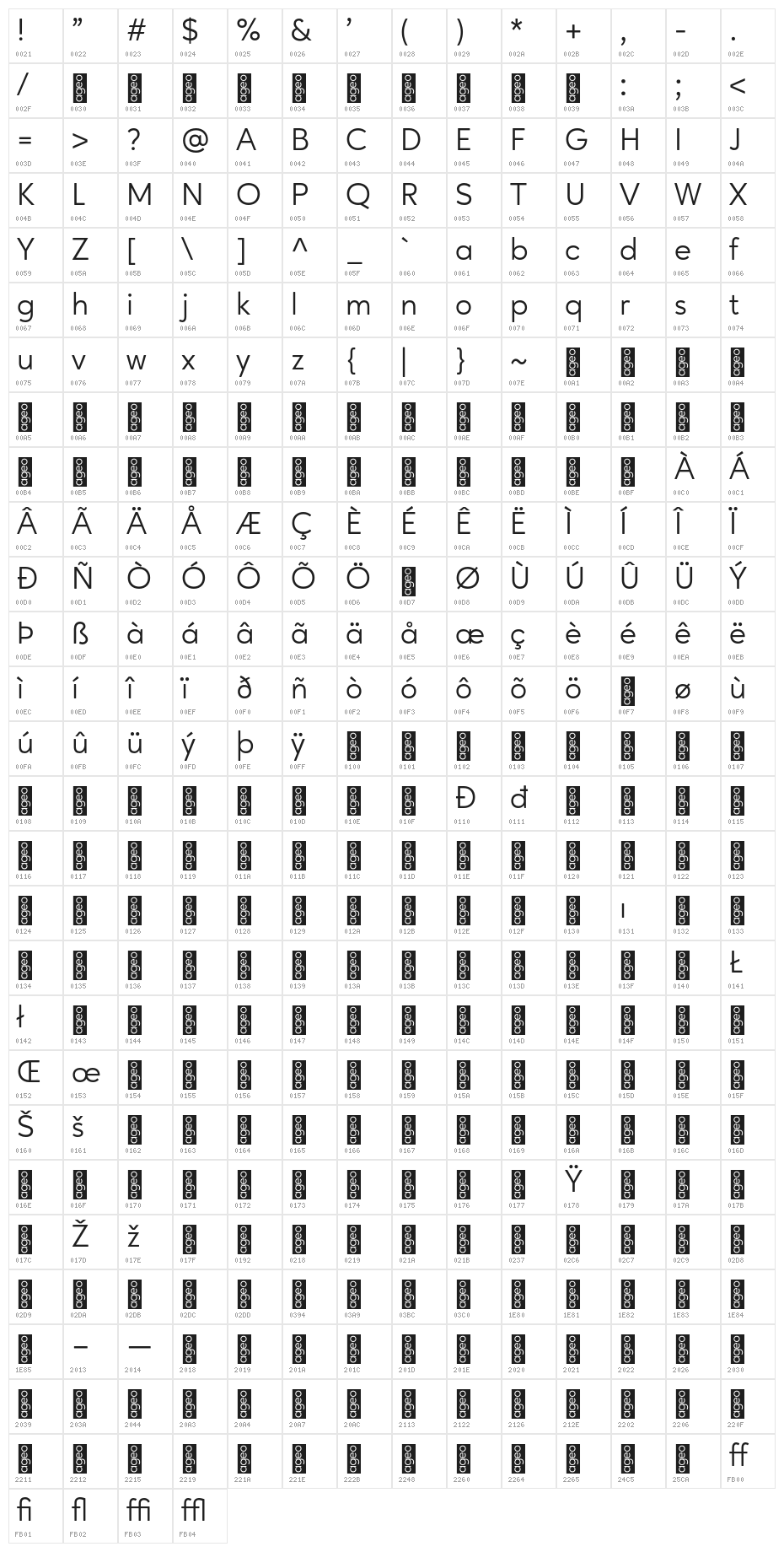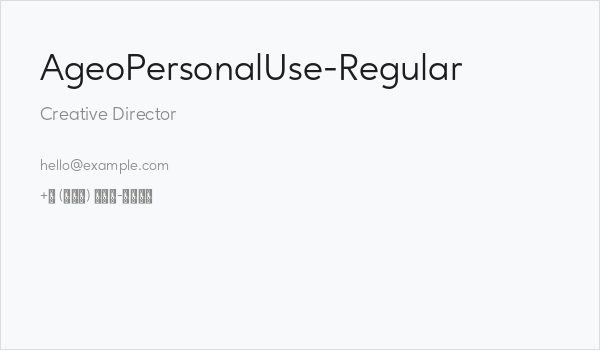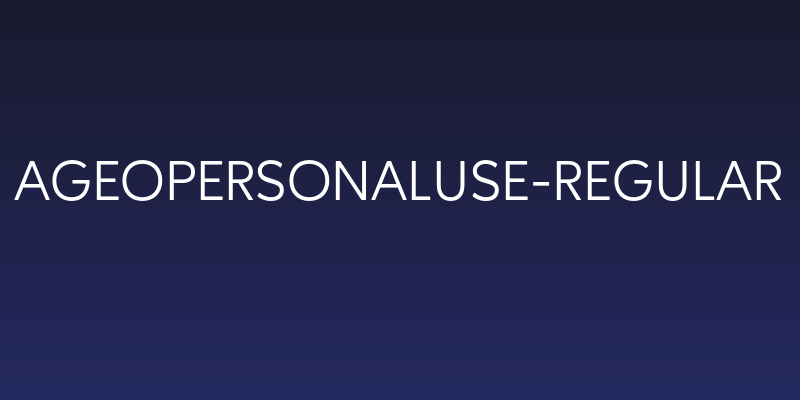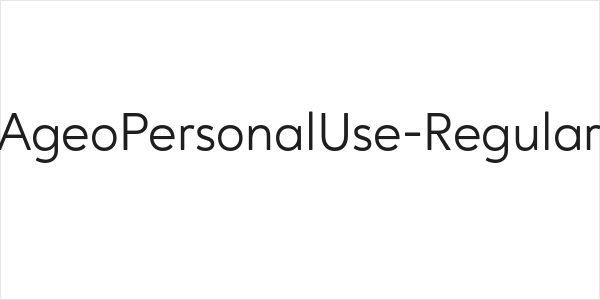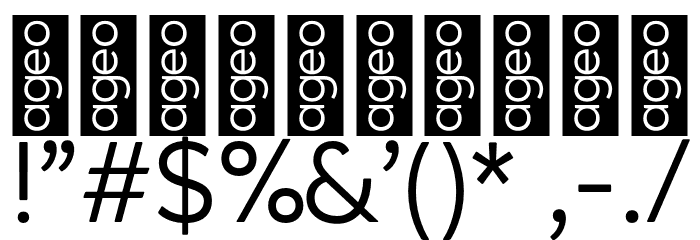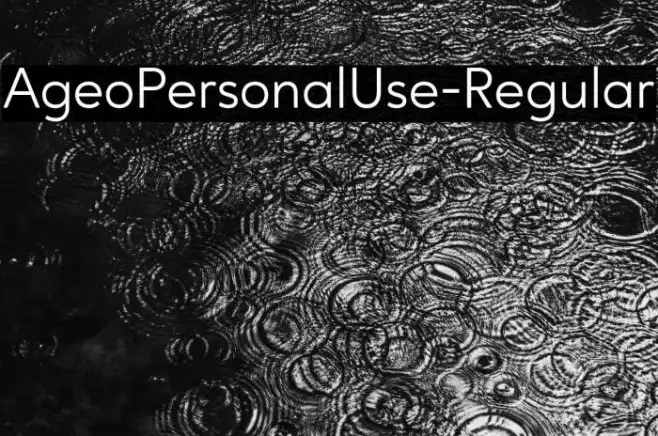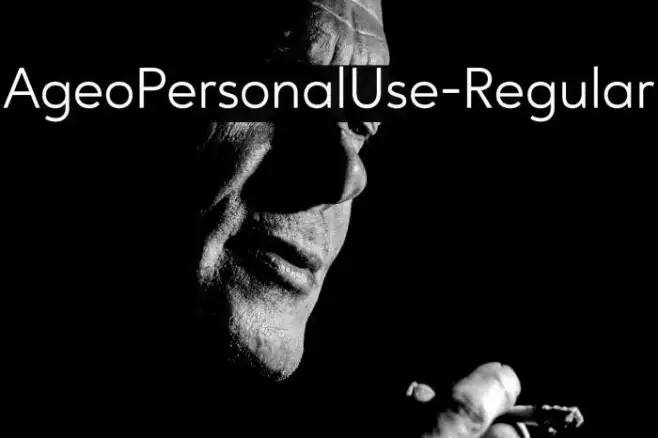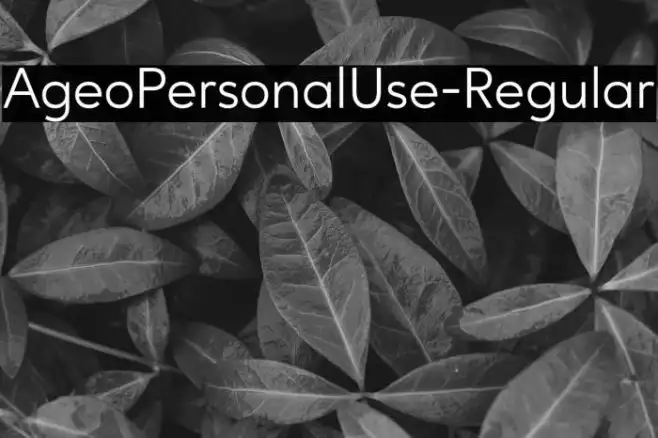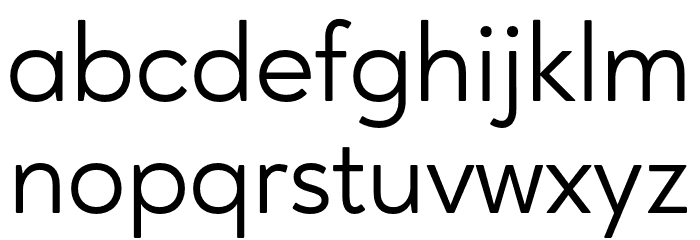
AgeoPersonalUse-Regular Font
AgeoPersonalUse-Regular Description
This font features a clean and modern sans-serif design with a geometric structure. The characters are uniform in width, providing a balanced and harmonious appearance. The uppercase and lowercase letters are well-proportioned, with a consistent stroke width that enhances readability. The numerals and special characters maintain the same geometric style, ensuring a cohesive look across all text elements. The font's simplicity and clarity make it versatile for various design applications.
| Proposed Projects | Ideal for branding, advertising, web design, and editorial layouts where clarity and modernity are essential. |